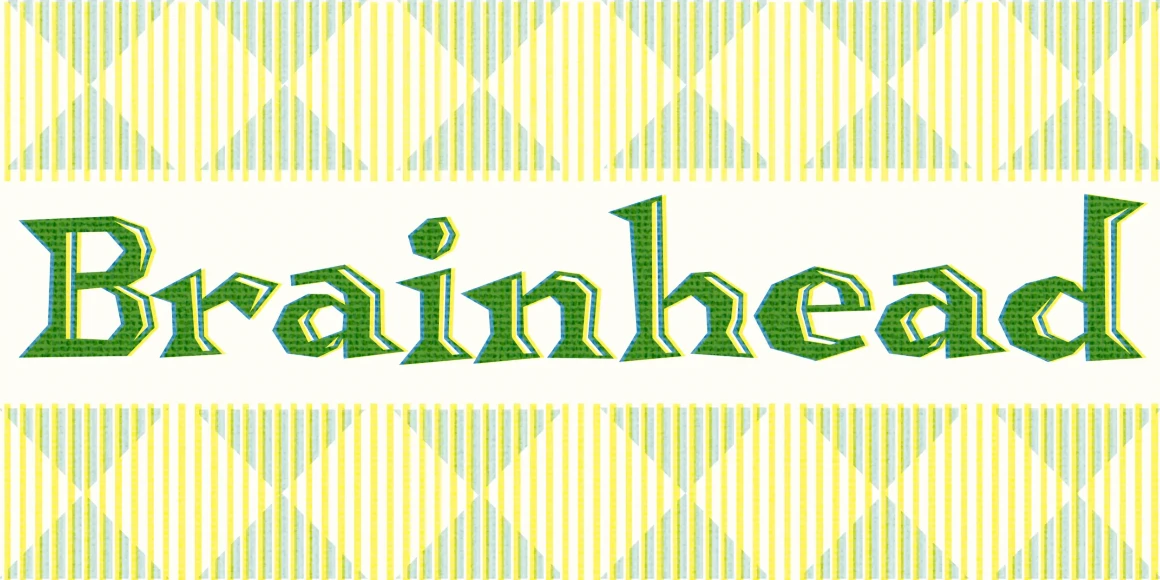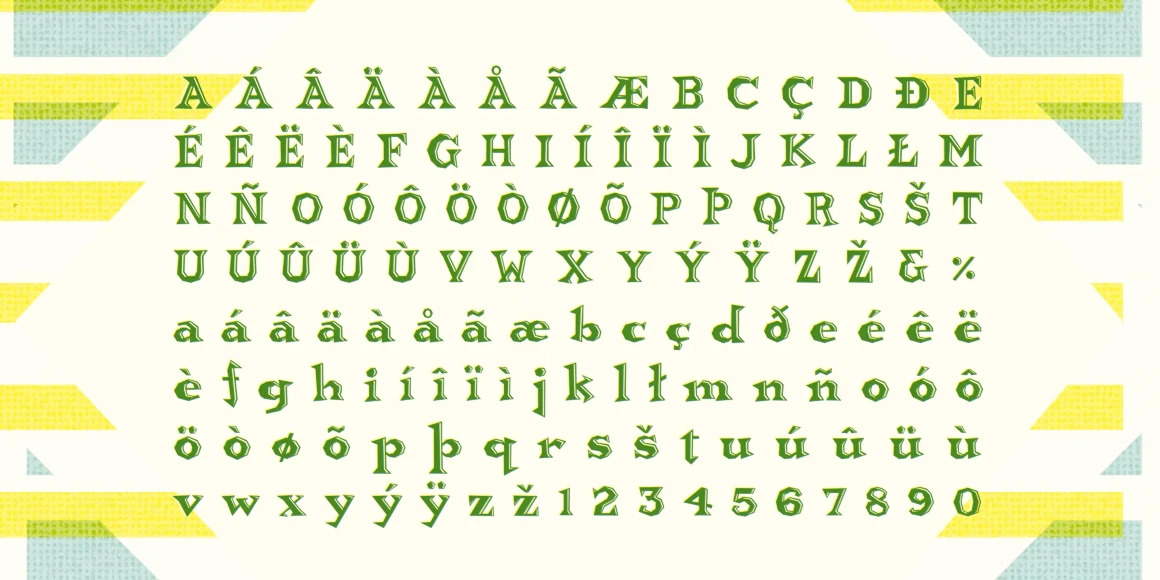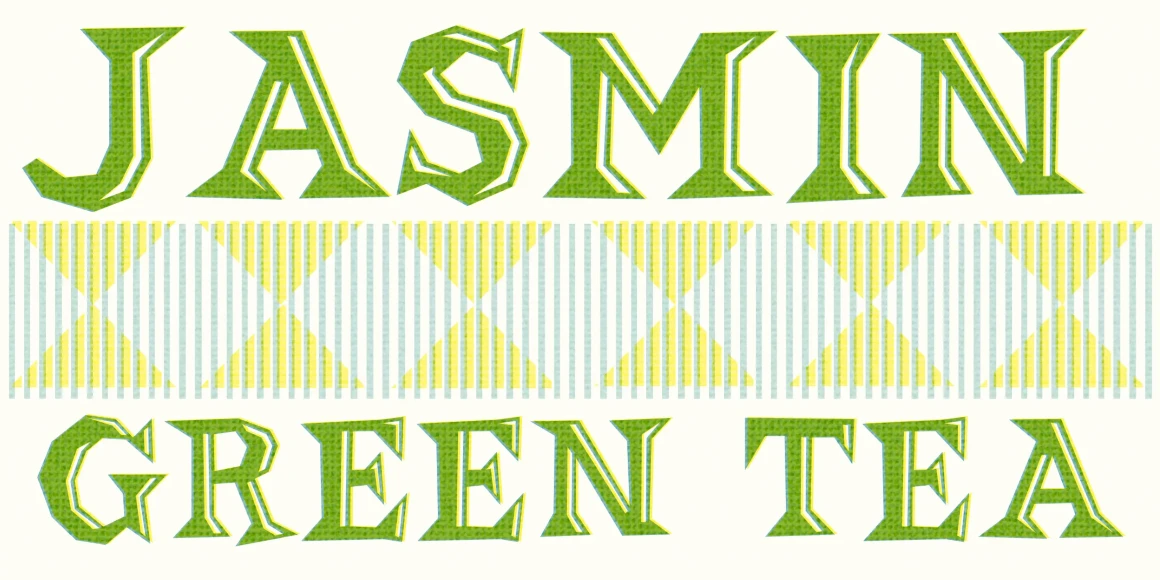
Brainhead
From Chank Co
A fun threesome designed by Chank Diesel for CAKE Magazine in 1995. Buckethead is an exercise in creating letterforms with no curves. All the letters in Buckethead were created using exclusively straight lines for a scissor-cut quality. This playful, bouncy, comic font is complemented with Bonehead, a more restrained version, and Brainhead which has fancy highlights on it. You’ve seen these fonts on Snapple Iced Tea bottles down at the 7-11, now you can use them in your own design work.
Designed by Chank Diesel